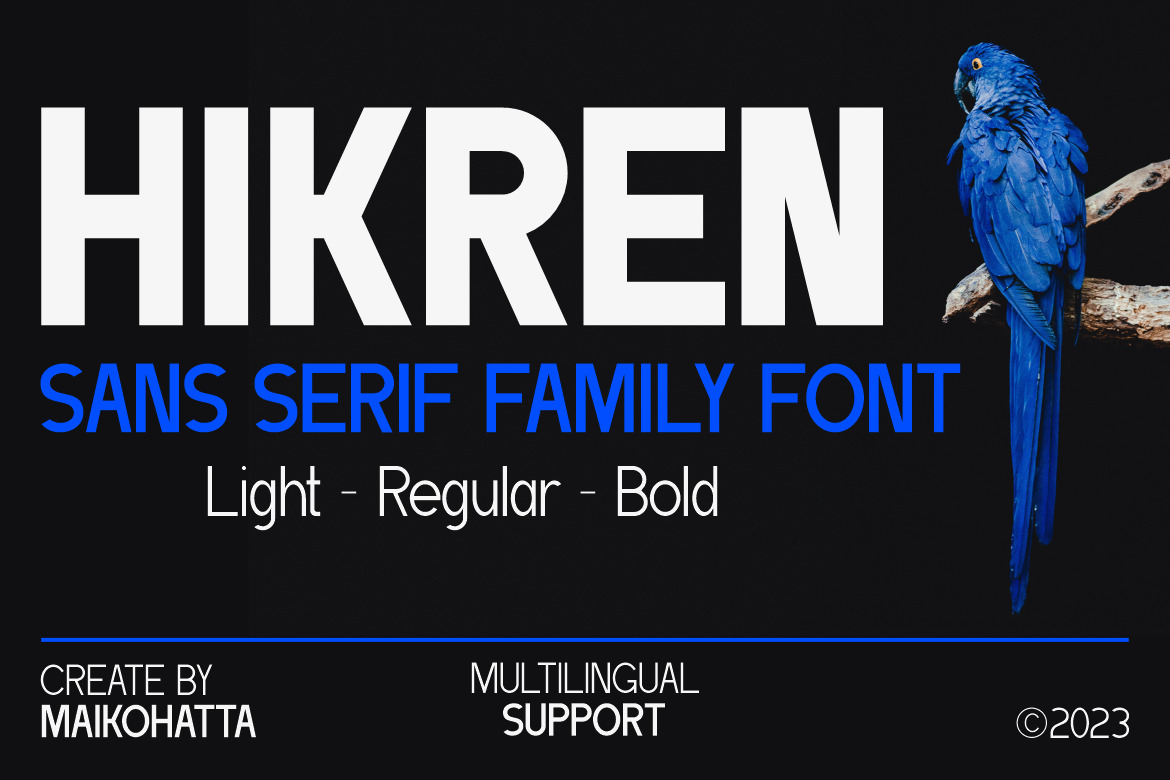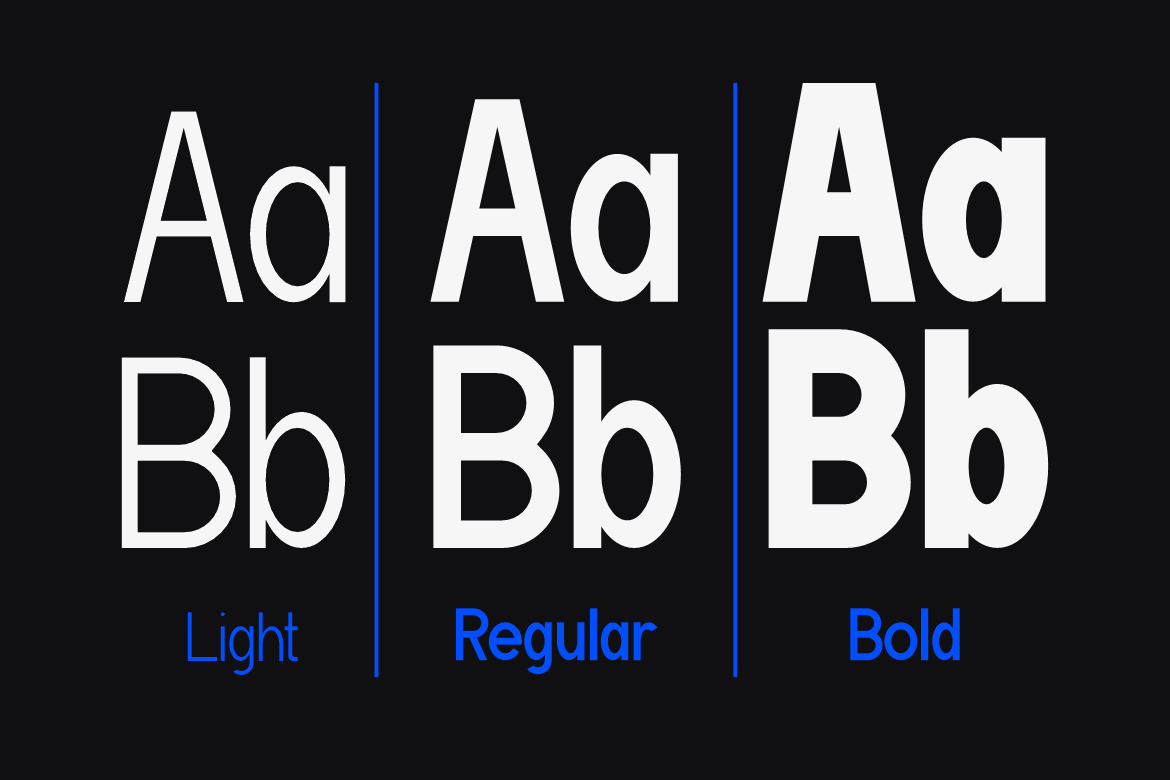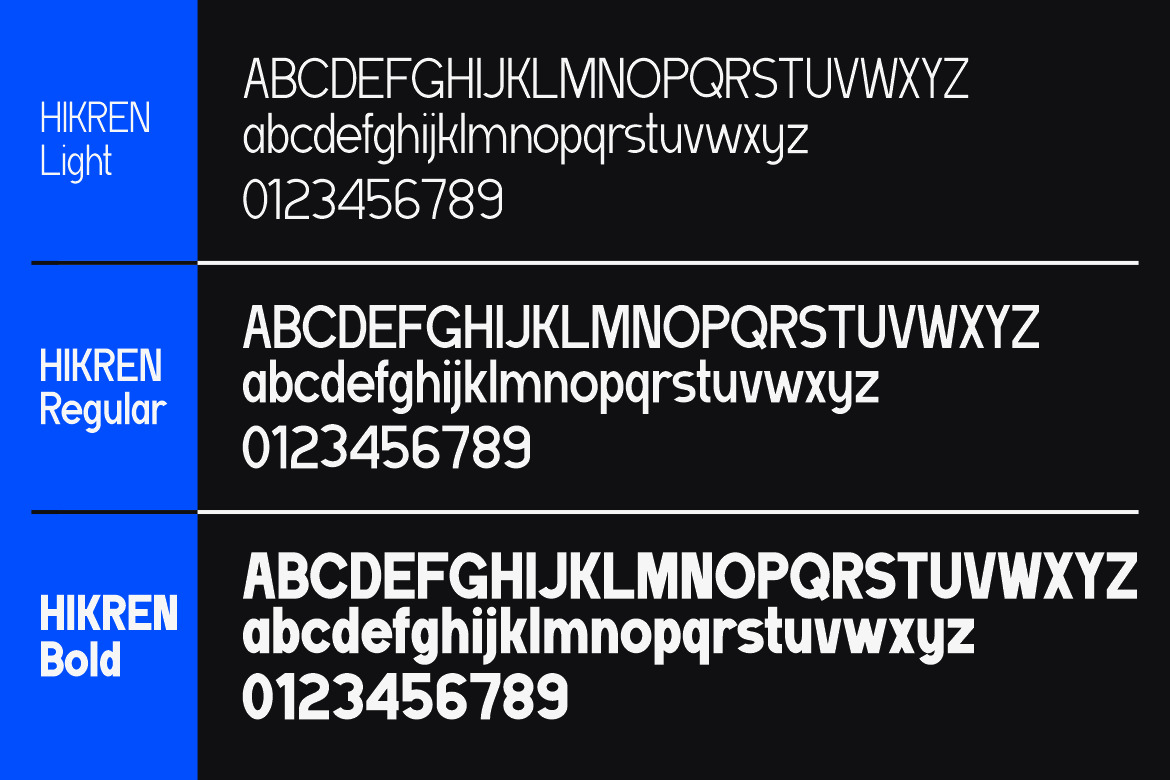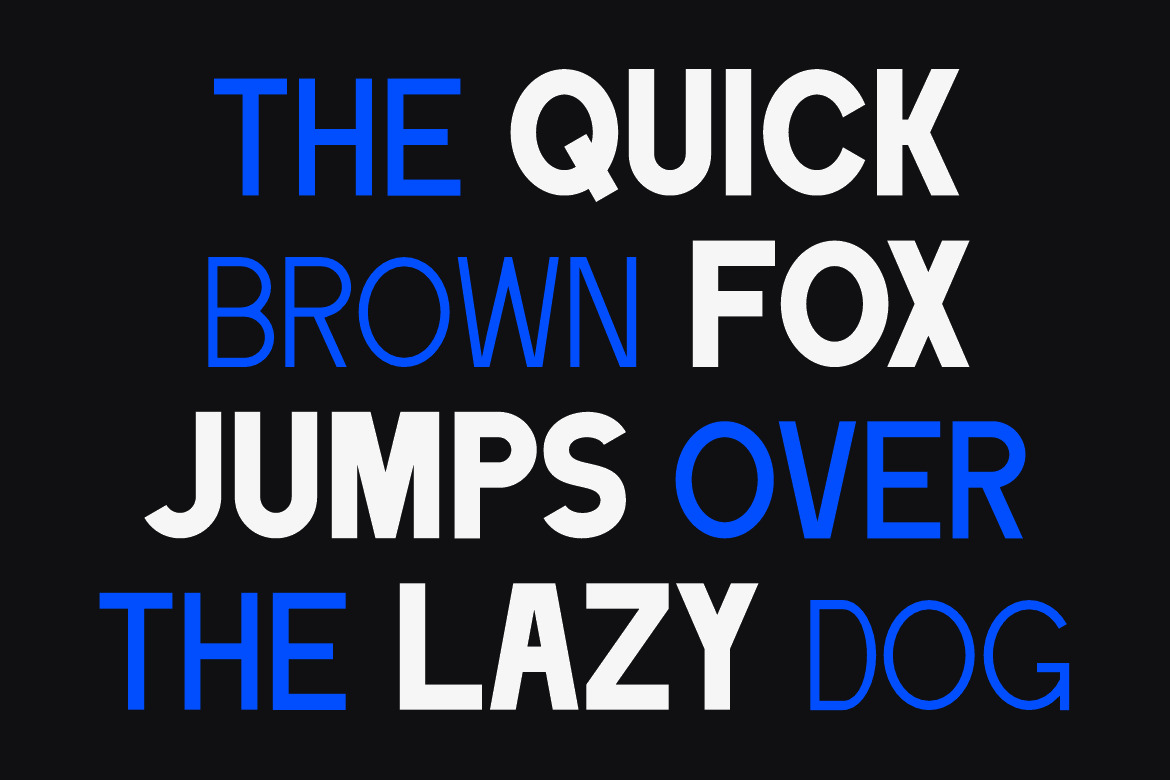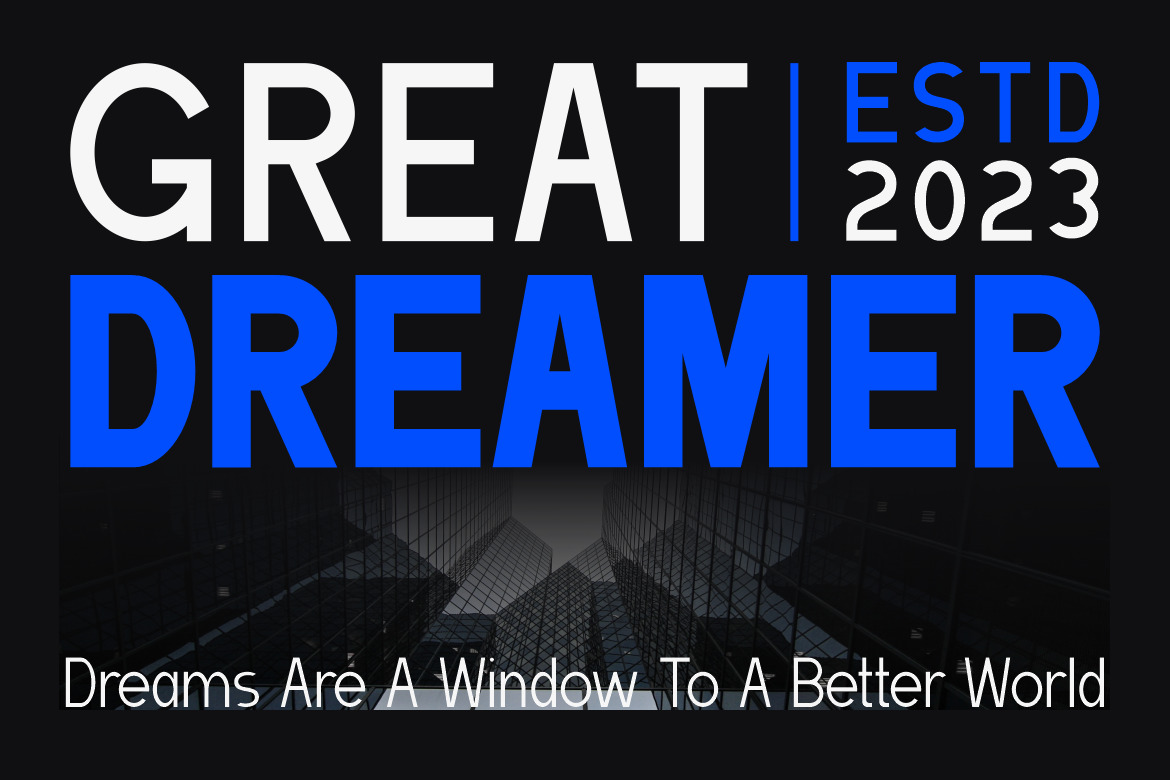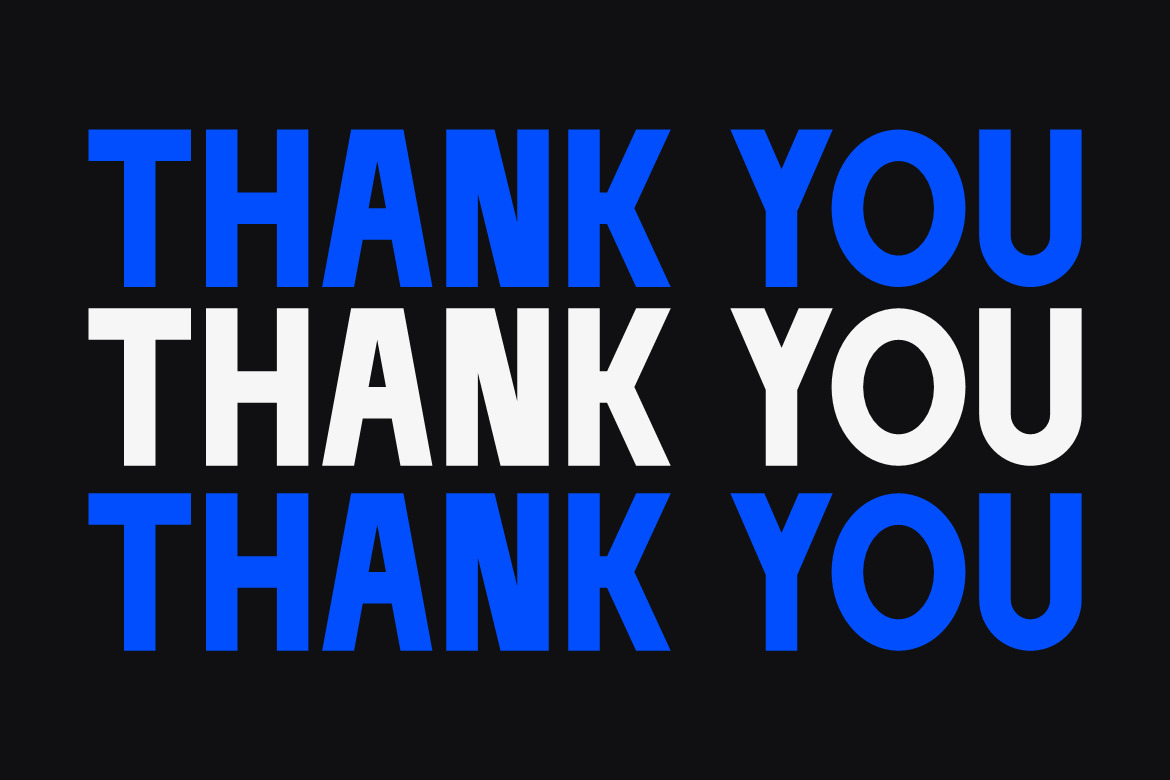
Hikren - Sans Serif Family Font
Introducing our new product **Hikren** Sans Serif Family Font
A sans-serif font family available in various styles is a highly versatile choice for graphic design and clean, modern text displays. This sans-serif font family offers flexibility in graphic design, and its various styles allow you to customize the appearance of text to suit your project's needs. With various combinations, you can create attractive and easy-to-read text displays in various contexts.
* Uppercase
* Lowercase
* Multilingual
**Style Font**
* Light
* Reguler
* Bold